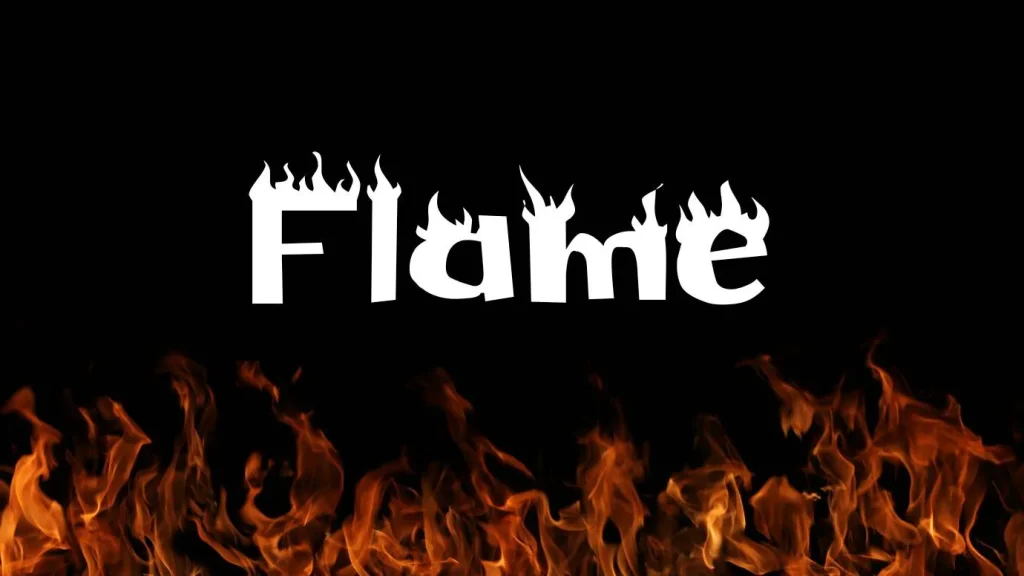
The typeface can be a tremendous choice for any venture that needs a feel of elegance. You’ll produce this typeface from the online textual style generator tool.
Many designers have been utilizing this typeface for their various design projects. The typeface will assist you to make an exceptional and attention-grabbing design within a brief time.
Despite its inflexible strokes and powerful series, is a strong character. When enlarged the text size, it is beautiful and easy to read. The typeface is ideal for branding, books, and posters that need a sharp, elegant tone.
| Name | Flame Font |
| Designer | Fontomen |
A typeface can be used as stylish text on any background image, whether for branding, houseware, or product packaging. The designer of this typeface created this design to make the best project designs possible.
Also, you can use this typeface style design when creating labels, watermarks, and modern commercials. This typeface is popular among designers because of its realistic appearance. You can also pair it with a space age font, and enhance the beauty of the project.